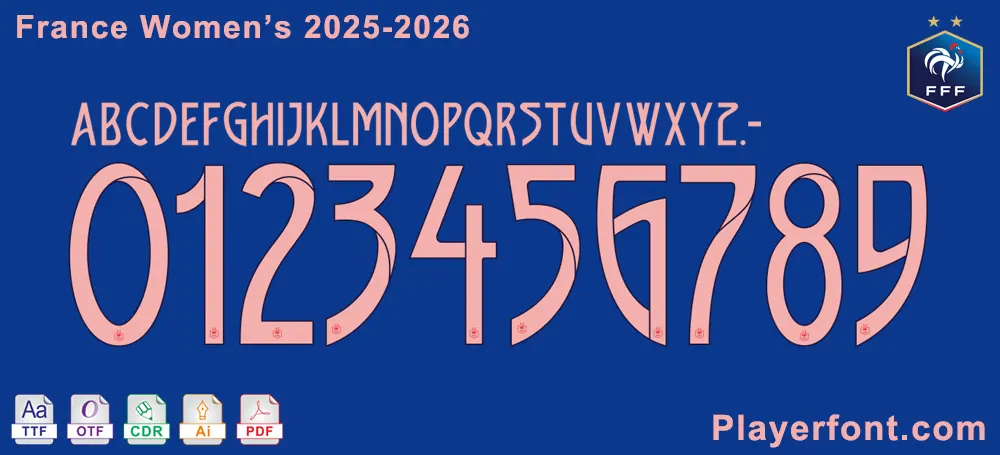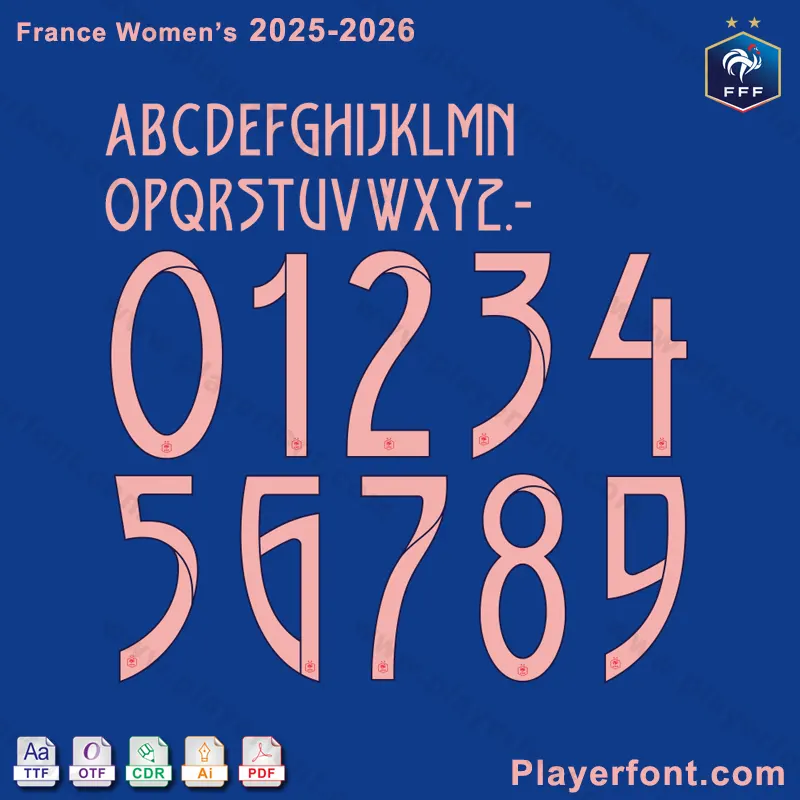
Embrace the Spirit of Les Bleues with the France Women’s 2025-2026 Font
Celebrate the France Women’s National Team and their journey through the 2025-2026 season with this high-quality, fan-made replica font. Meticulously crafted to mirror the exact typography seen on the jerseys of your favorite players, this font package is the ultimate tool for every true supporter and creative professional.